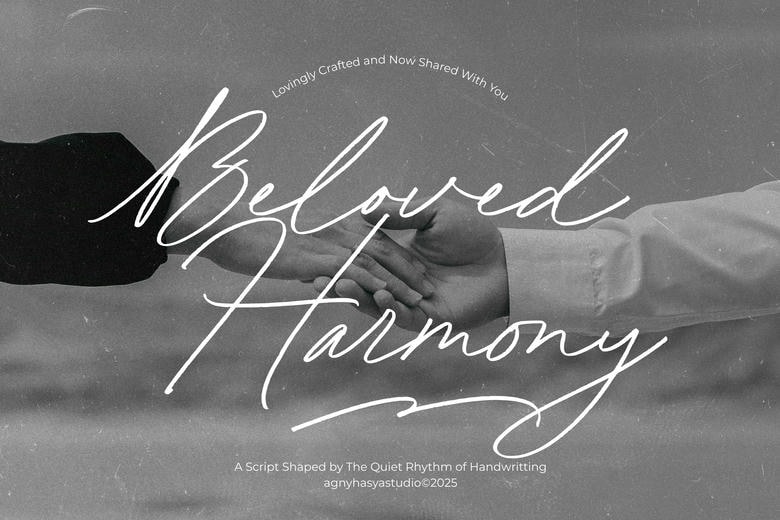
Beloved Harmony Font
Beloved Harmony is an adorable handwritten font that is meant to express a loving touching feeling with natural and flowing strokes. It features cozy, natural letterforms that add a personal and authentic feel to any project presented, which makes it perfect on the projects that require personal touch.
This font is a script that is made lovingly and is now being shared with you, and that is designed by the silent metre of handwriting. It incorporates beauty and warmth, and it is ideal when it comes to designing a wedding, signature, branding, quotations, product packaging, and social media posts and eye-catching display text.
In order to make your typography look good, Beloved Harmony includes special ligatures, stylistic alternatives, as well as beautiful swashes to give you creative freedom and handsome variety in the look of your lettering across the board.